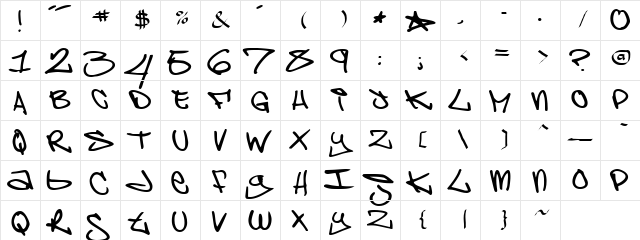
Complete ChaosKid's Brooklyn Kid Regular glyph index. Displaying only characters natively supported by ChaosKid's Brooklyn Kid Regular font.
ChaosKid's Brooklyn Kid is a composed and adaptable typeface that performs quietly and consistently across a wide range of design contexts.
Pro Tip: Use ChaosKid's Brooklyn Kid in both headline and body roles to test its range before committing to a single application.